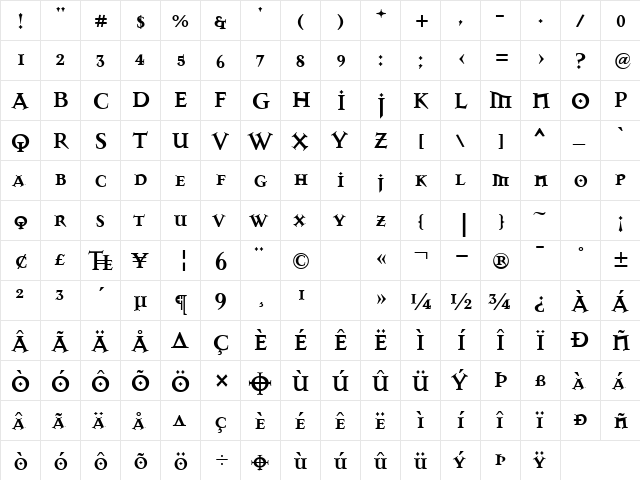
MasonAlternate Bold
Design Context for MasonAlternate Typeface
MasonAlternate takes a measured approach to typography — its balanced proportions and neutral character make it a reliable workhorse for both digital and print work. Its bold stroke weight gives it real presence on the page.